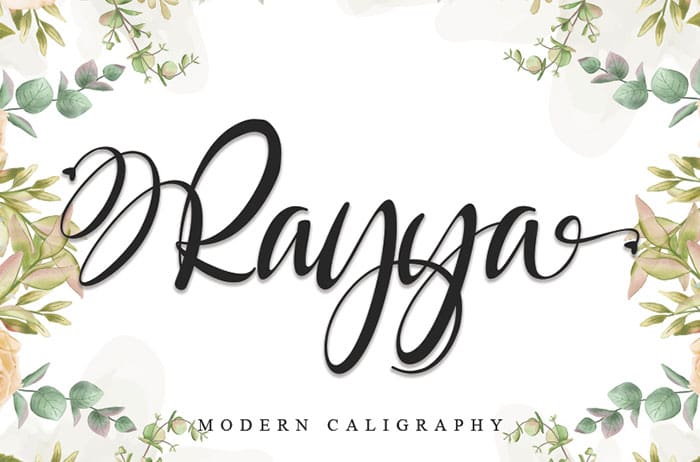
Free Rayya Script Font
Rayya Script Font
Free Rayya script font carefully created with a touch of elegance. It features amazing swashes and ligatures that make the script incredibly versatile. Whether you’re looking for fonts for Instagram or calligraphy scripts for DIY projects, Saylina will turn any creative idea into a true piece of art! Designed this font by Thomas Aradea. You can also search more free Script Fonts.